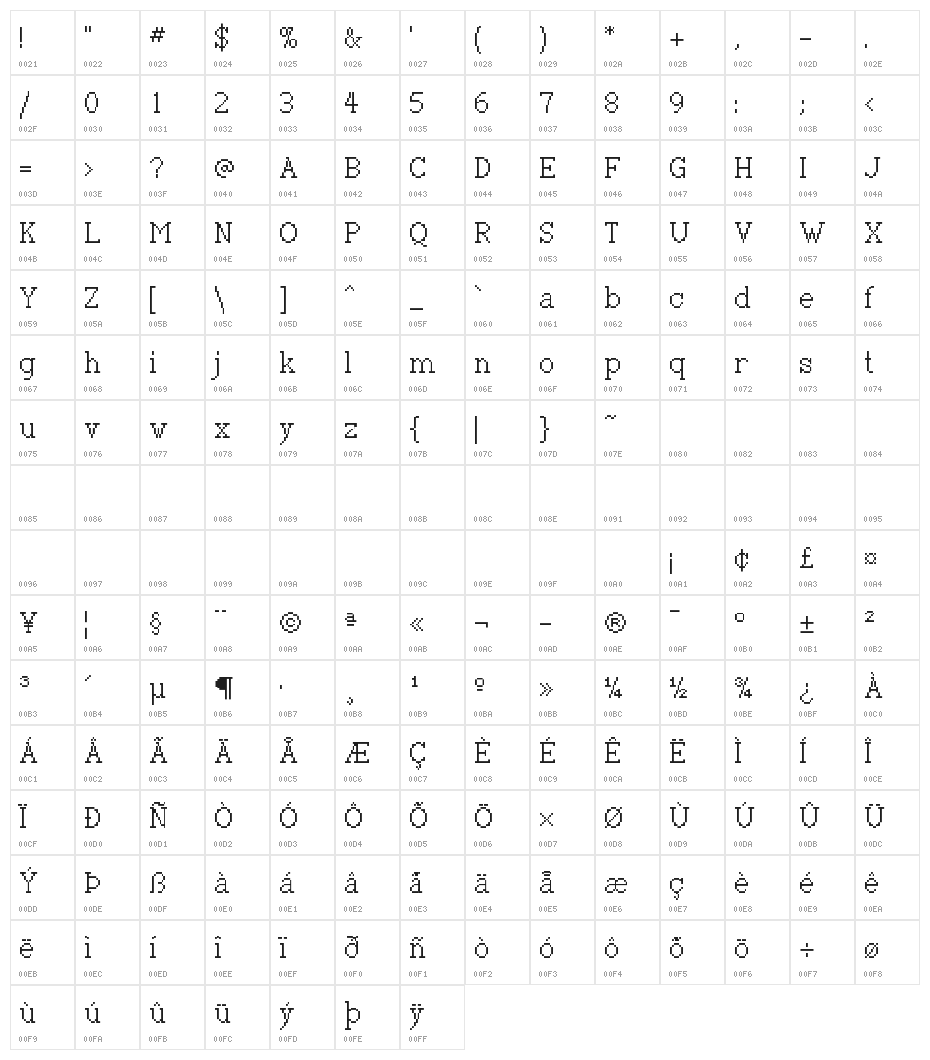
Goethe Font
Goethe Description
This font features a classic serif style with a distinct, structured appearance. The characters are evenly spaced, providing a balanced and readable text. The serifs are pronounced, adding a touch of elegance and formality. The uppercase letters are bold and commanding, while the lowercase letters maintain a consistent flow. The numerals are clear and easily distinguishable, making them suitable for both text and numerical data. Special characters are well-defined, enhancing the font's versatility. Overall, this font exudes a timeless and professional aesthetic, ideal for formal documents and sophisticated designs.
| Use Case | Body text, Headlines, Formal documents |
| Proposed Projects | Ideal for formal documents, book typesetting, academic papers, and elegant invitations. |